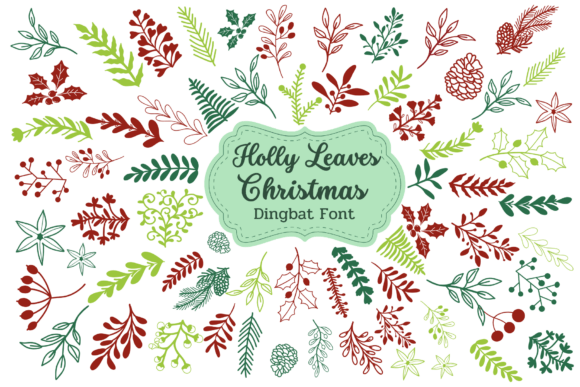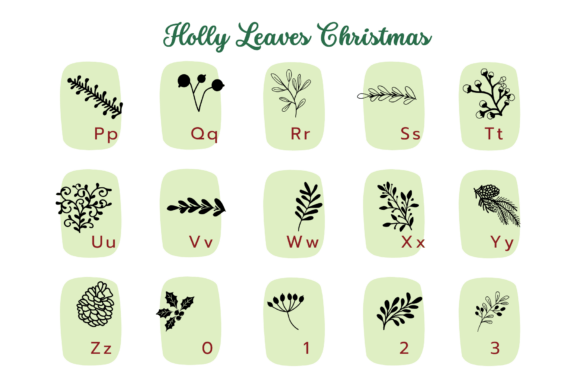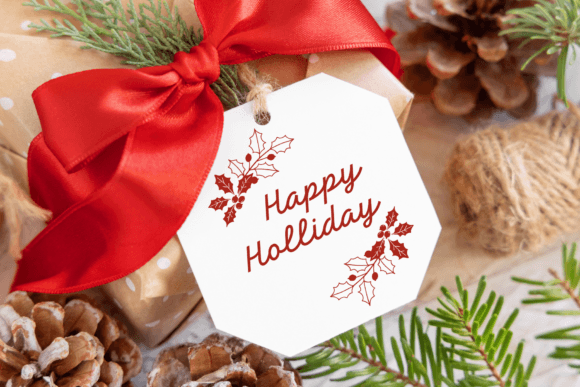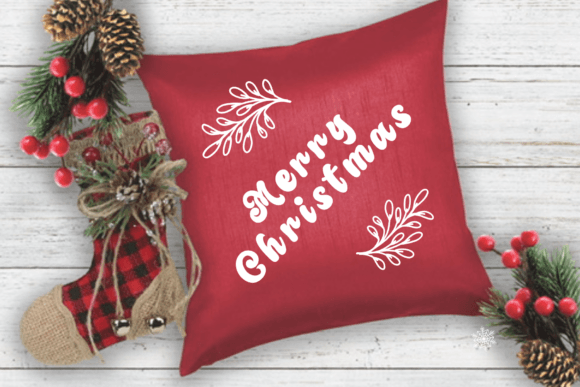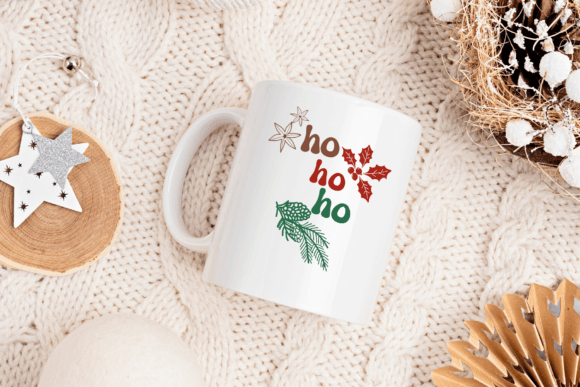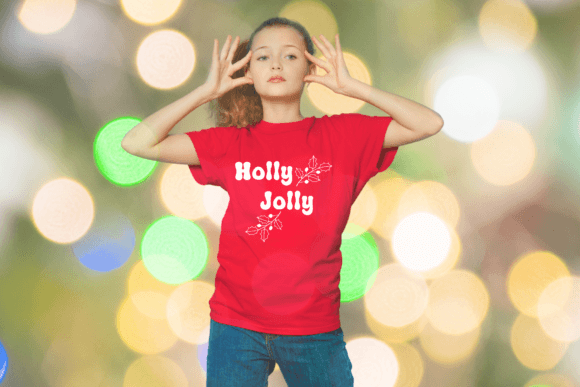
Holly Leaves Christmas Font
Holly Leaves Christmas Dingbats font is a beautiful collection of festive . It’s perfect for adding a splash of holiday color to your designs. Giving a fun and quirky atmosphere to your Christmas-themed projects. Spread the joy of the season with Christmas Ornament Dingbats. And let your creativity shine during this joyous time of the year.